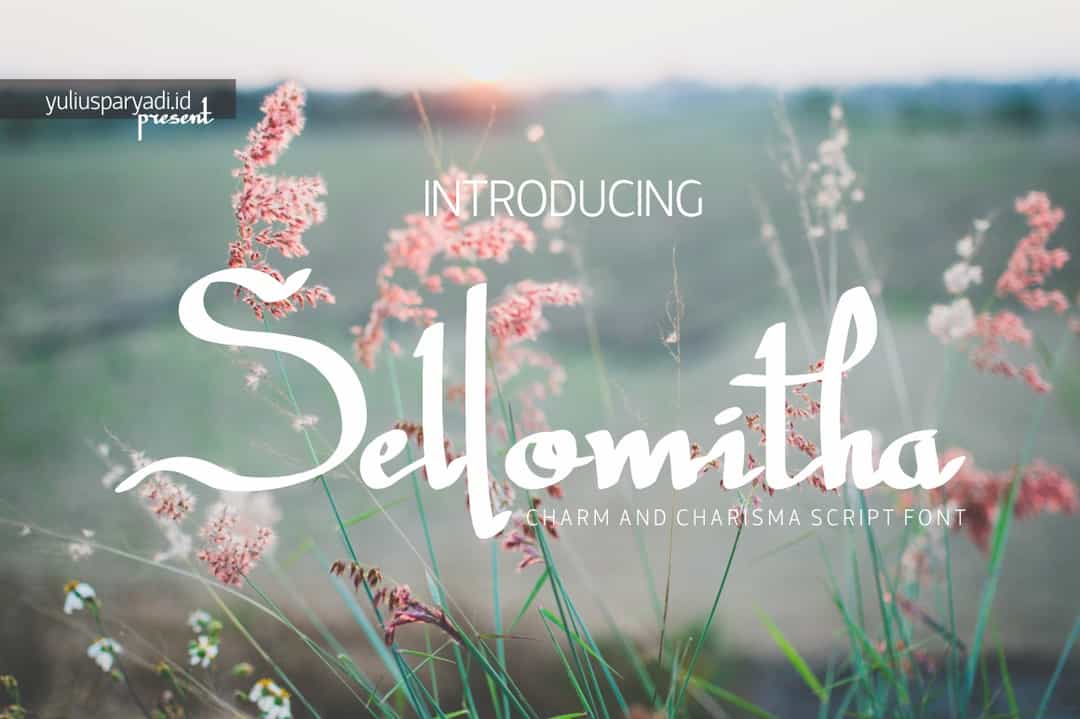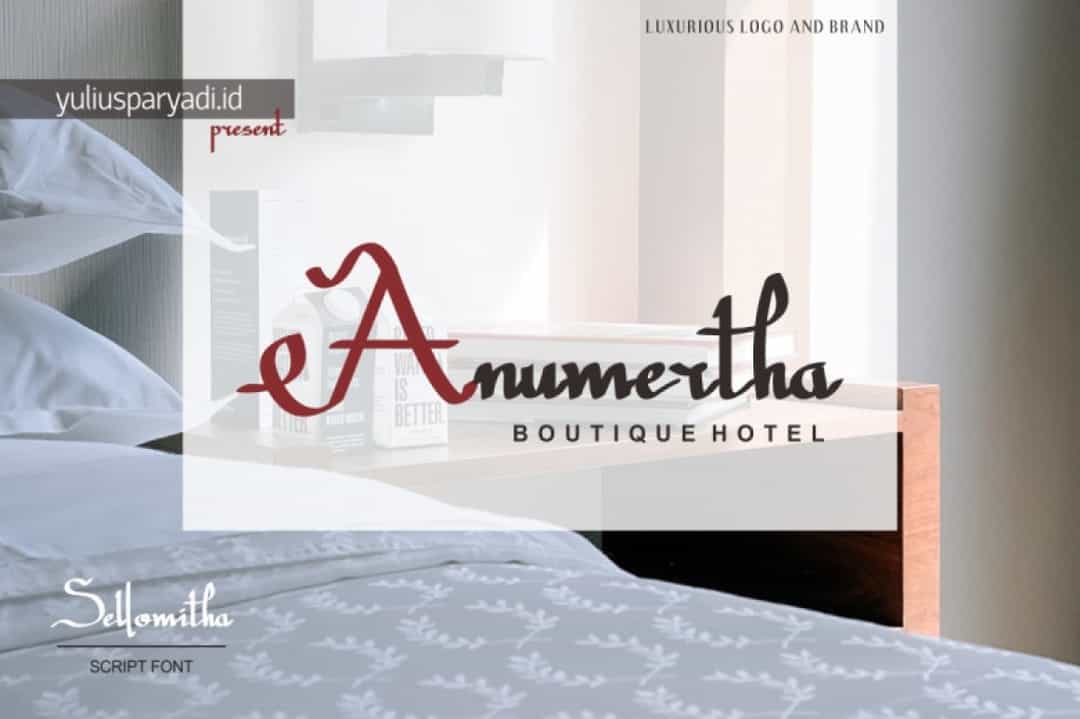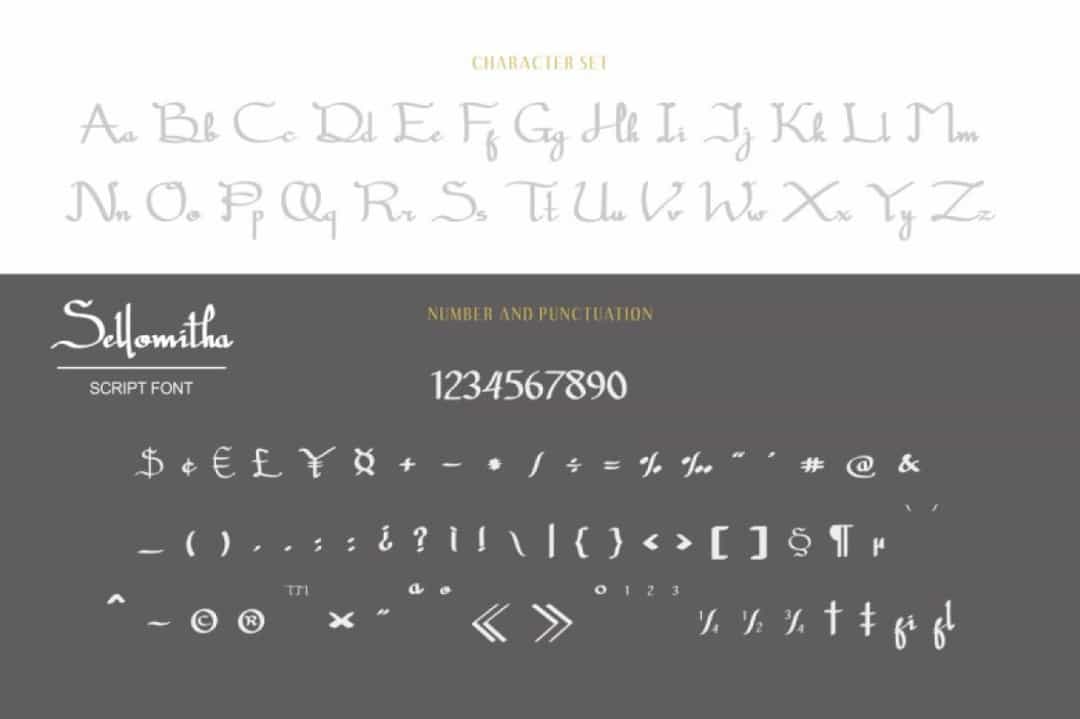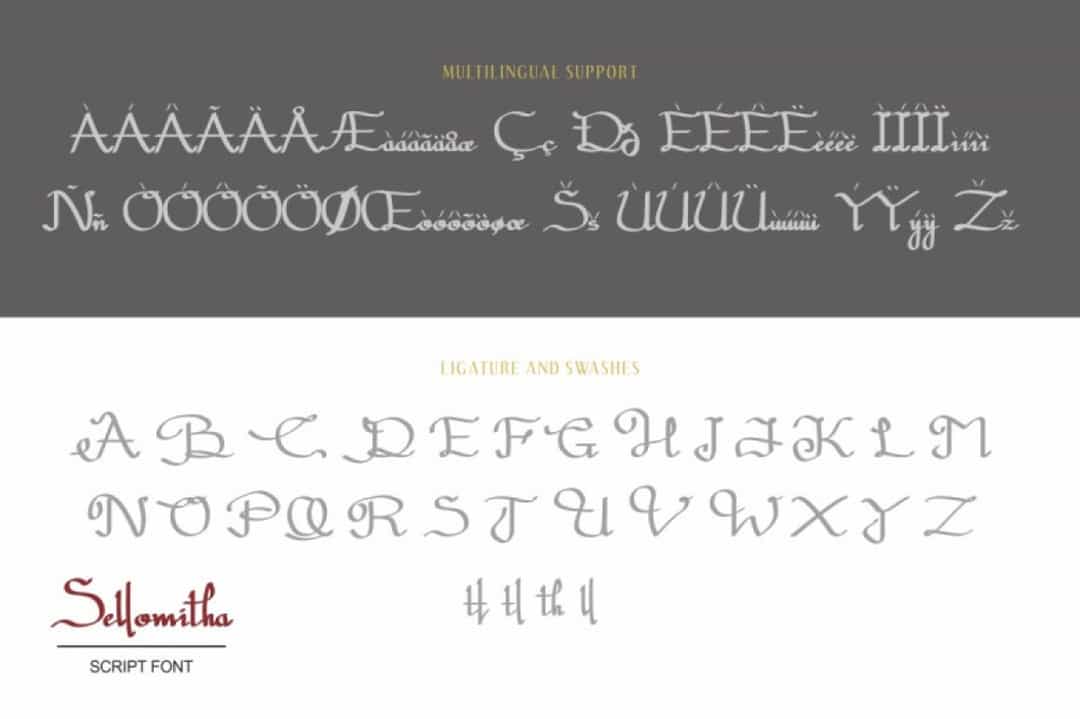
Sellomitha Font is inspired by its name to represent charisma and charm. She loves drawing attention, yet can easily read this font with no strain at all. Sellomitha can be used in logos, quotes magazine covers corporate cards as well as many other design projects.